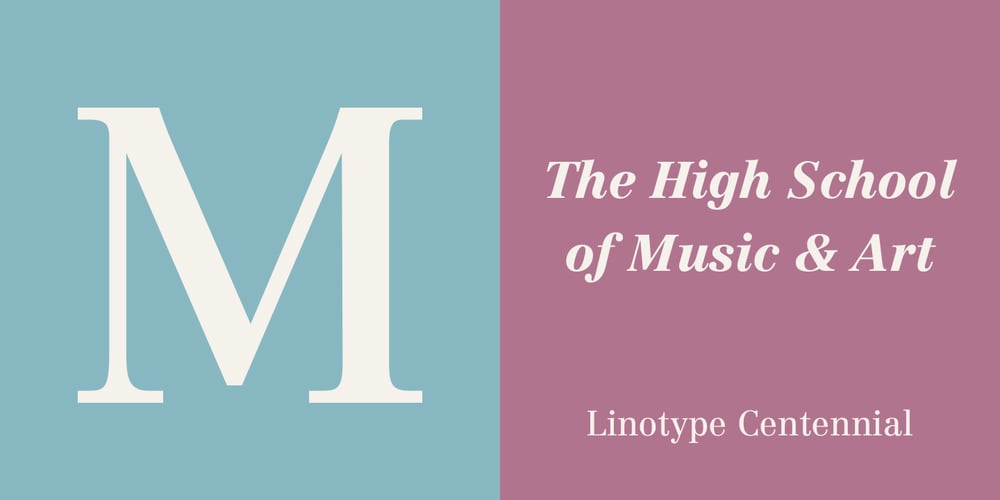
Linotype Centennial Font Family was designed by Adrian Frutiger and published by Linotype. Linotype Centennial contains 8 styles and family package options. Centennial appeared in 1986 in honor of Linotype’s 100th birthday. The roman and light cuts of the font are reminiscent of the Century typeface, particularly on that of Linn B. Benton and Morris F. Benton, designed around the turn of the 19th century for the American Type Founders. Like Century, Centennial too embodies a cool, reserved neutrality.